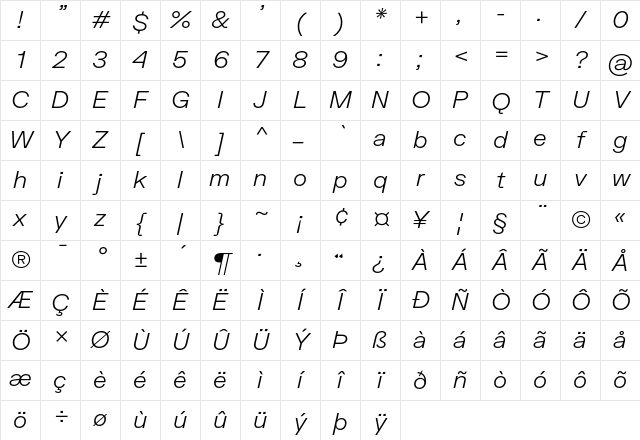
FK Grotesk Light SemiItalic Free Font
FK Grotesk Light SemiItalic
Style: Light SemiItalic
Foundry: Florian Karsten
Designer: Florian Karsten
Design Context for FK Grotesk
FK Grotesk takes a clean, functional approach - its unadorned letterforms prioritise legibility and work reliably across screen and print environments. The slanted form adds forward momentum and visual energy. Its slender proportions lend an understated elegance to any composition.